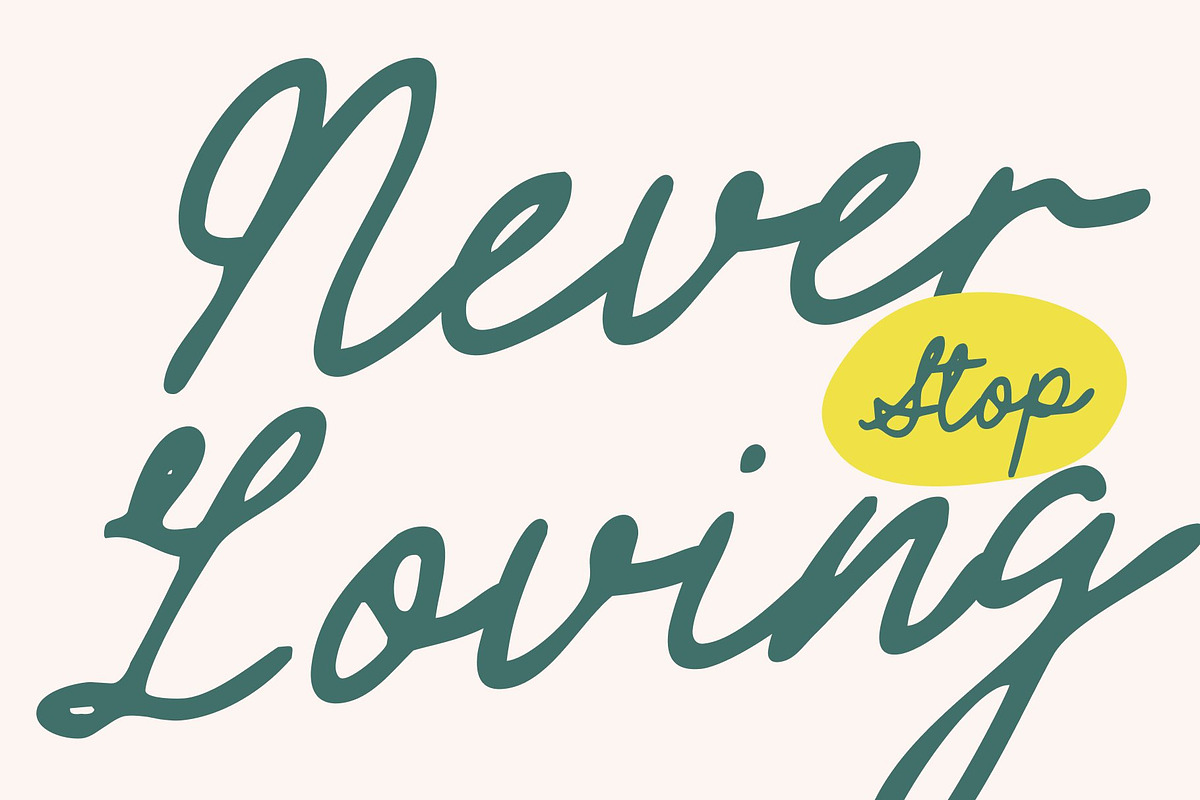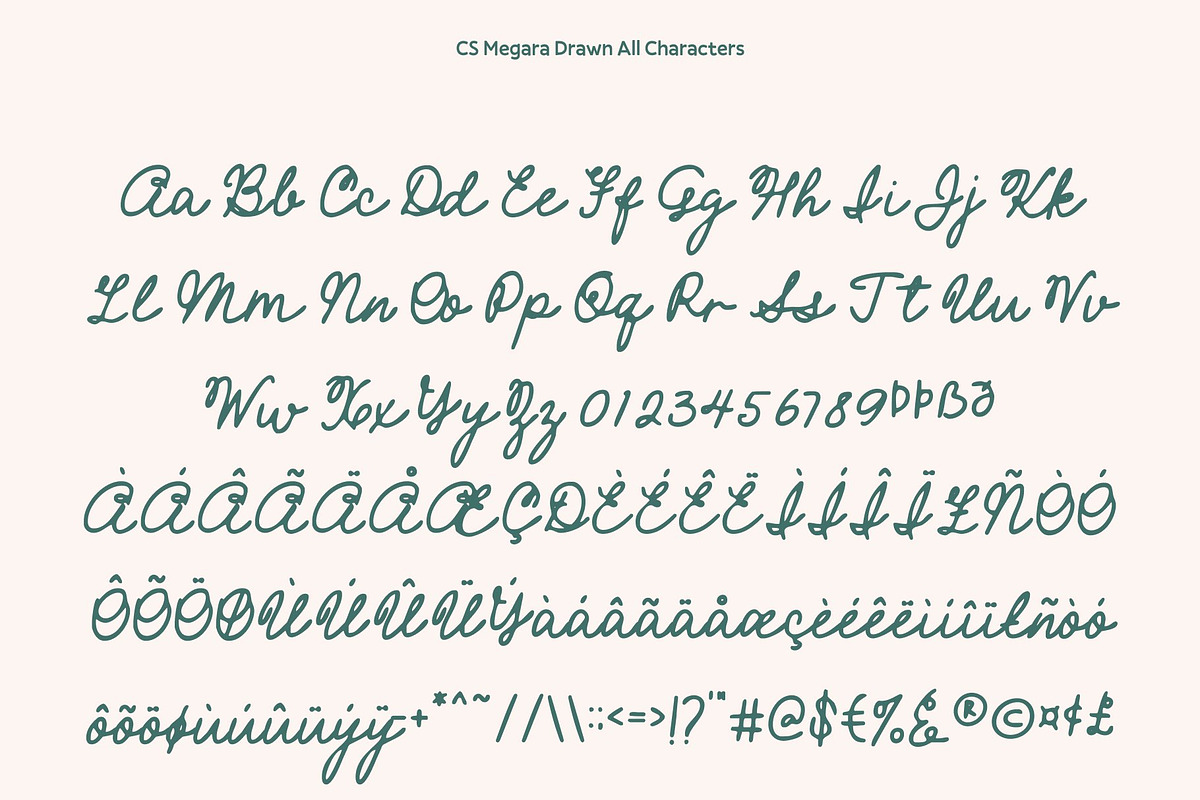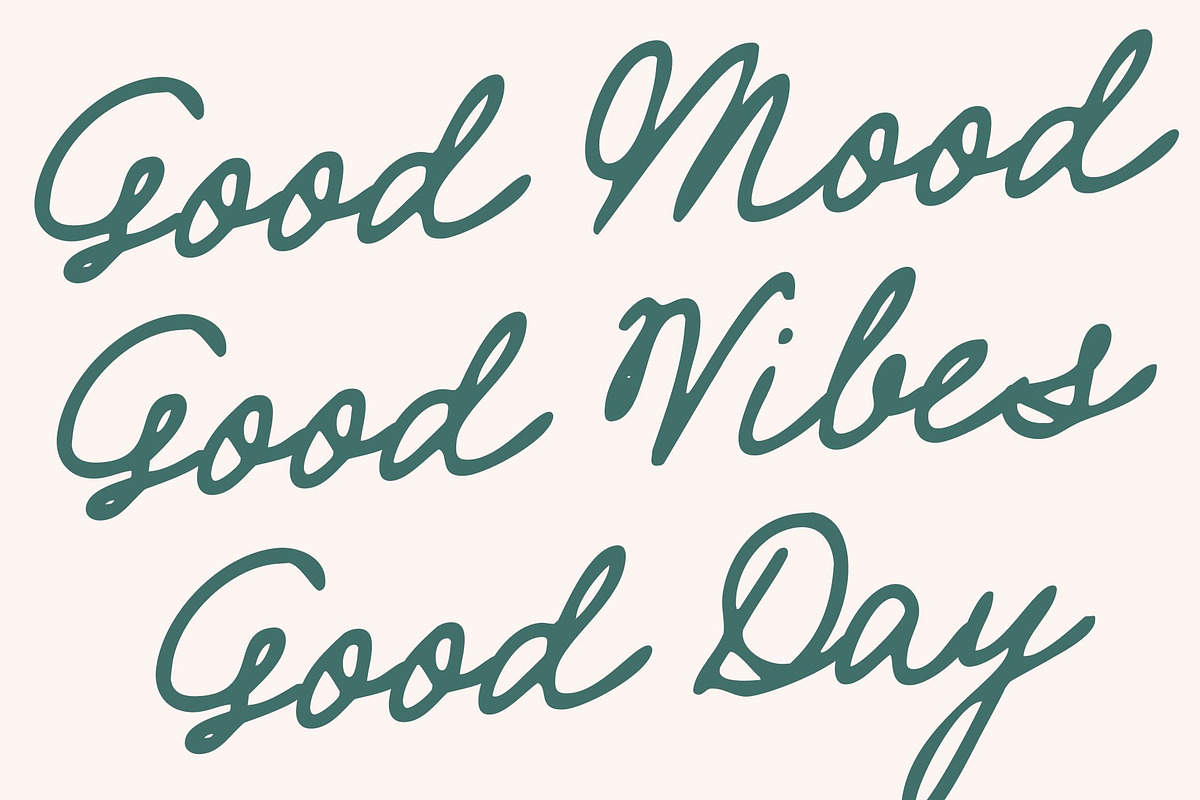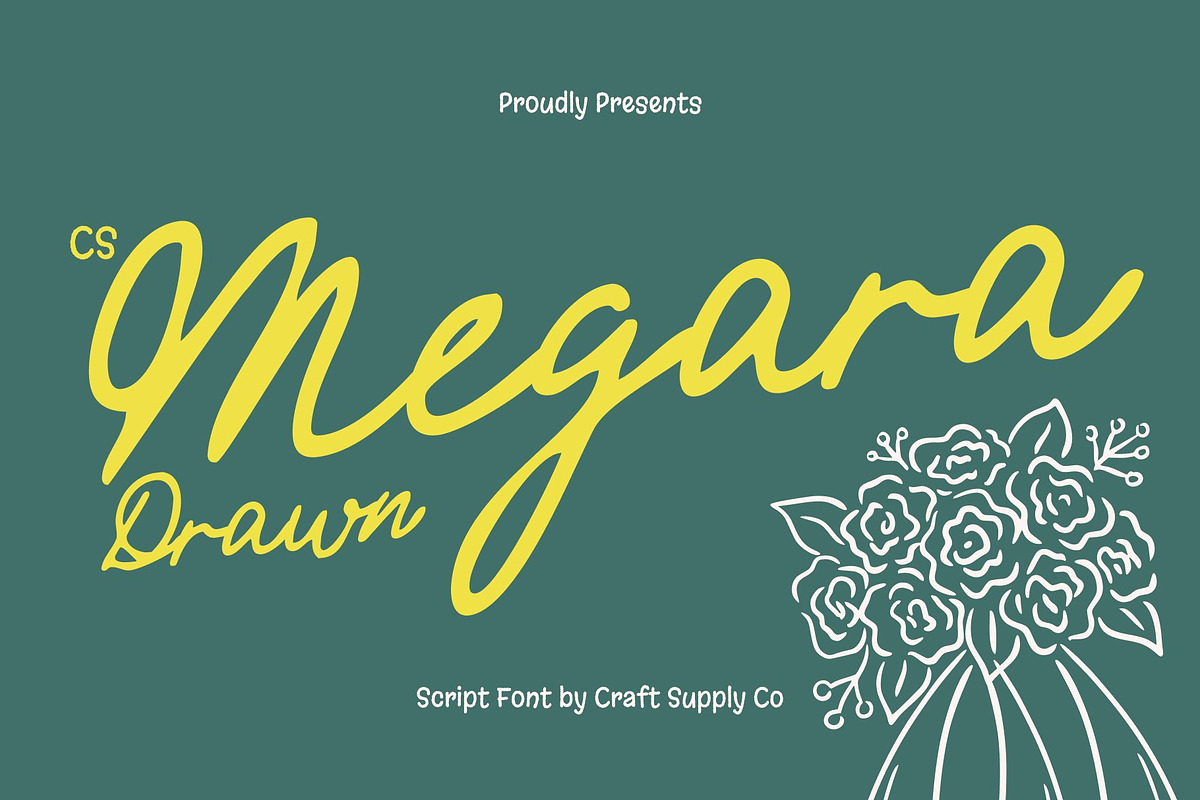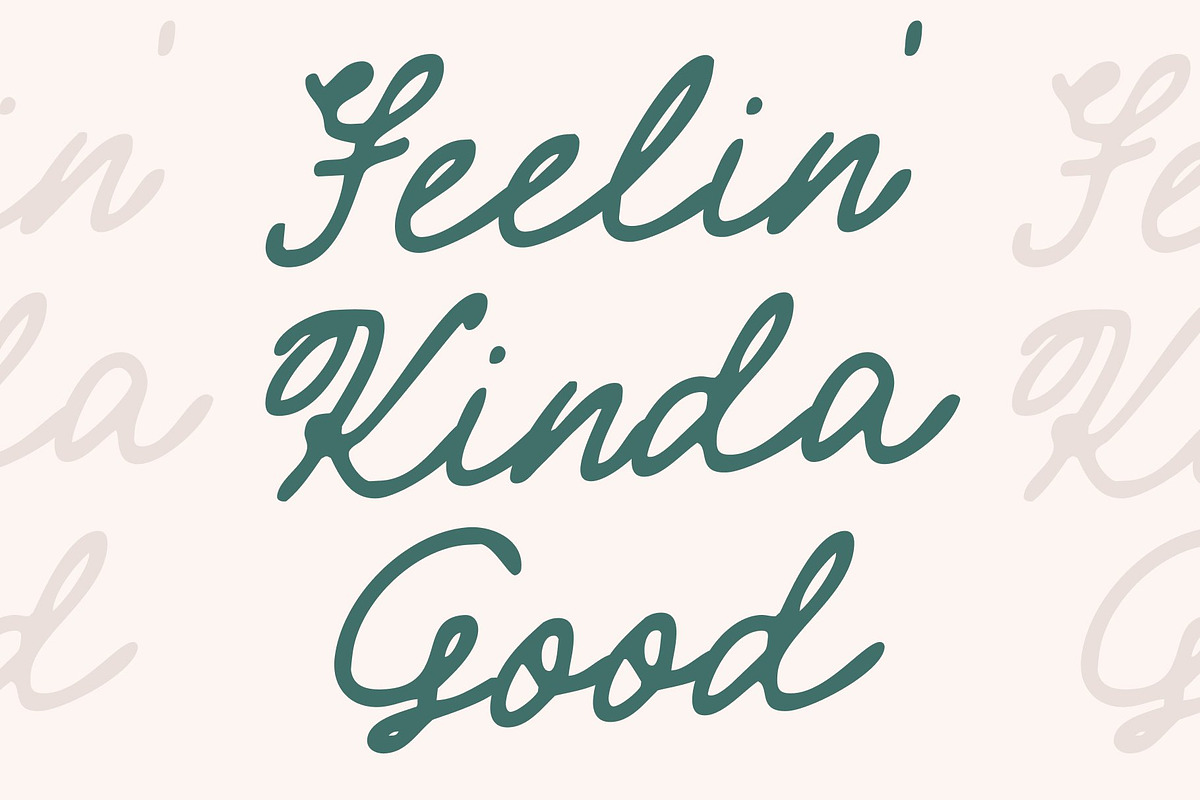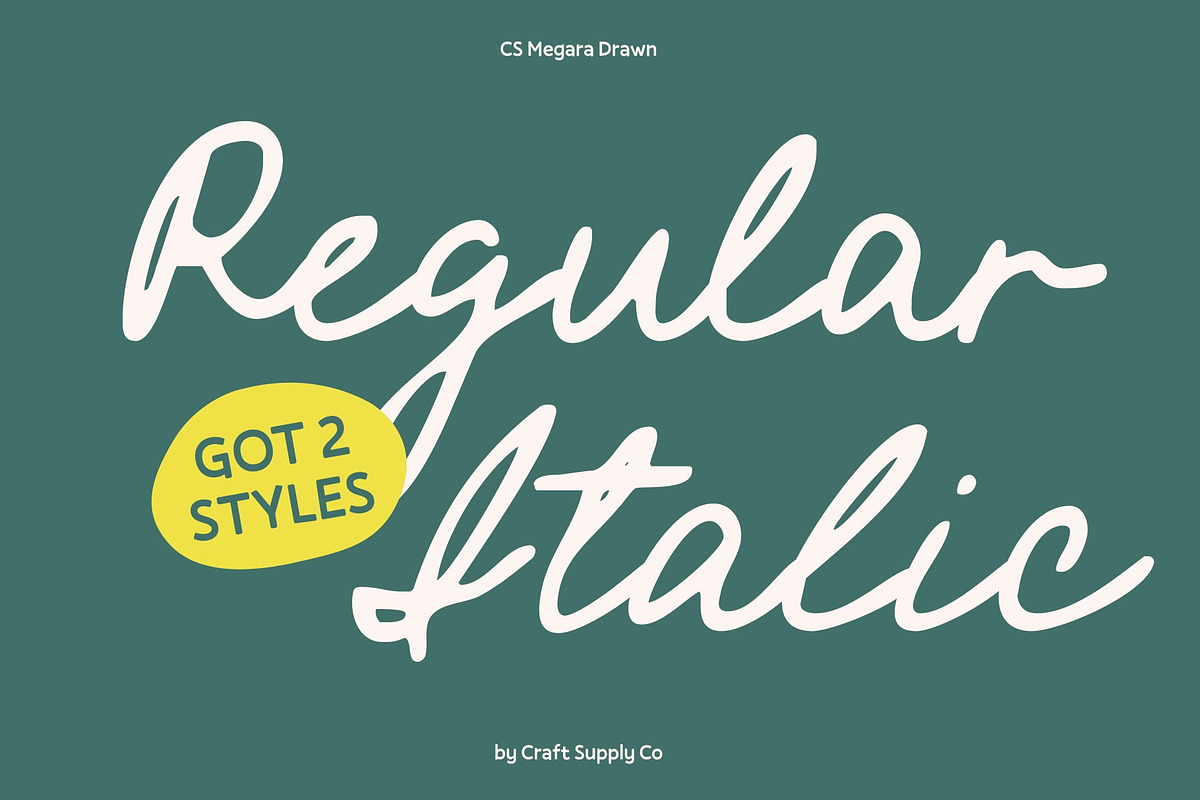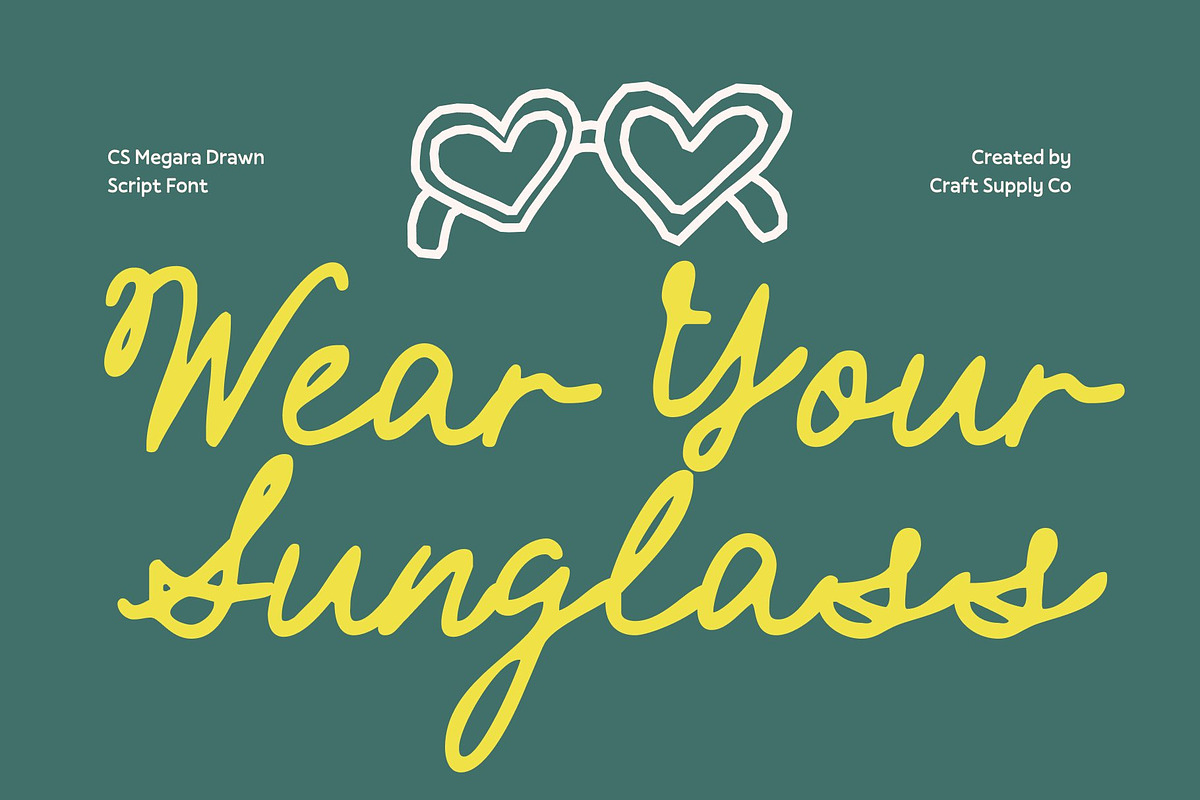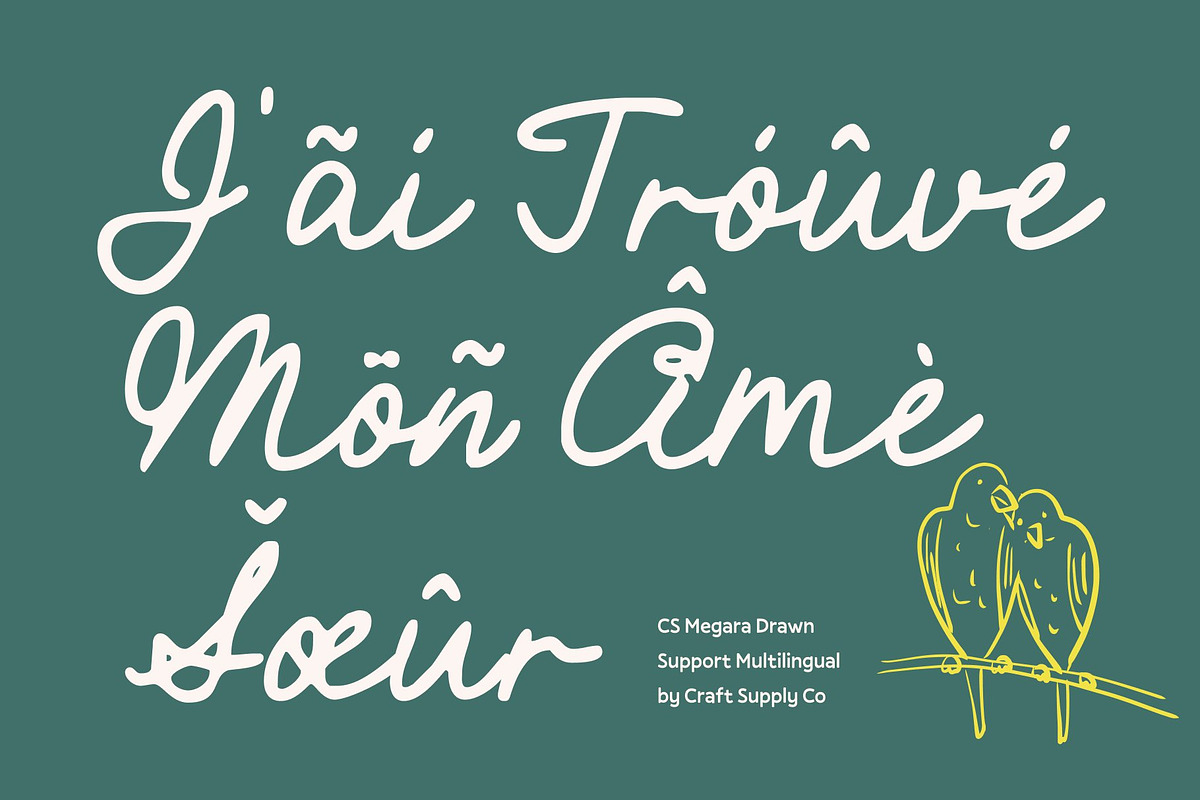
CS Megara Drawn
CS Megara Drawn – Beautiful Script with Modern Refinement
Branding Script Font with Graceful Flow This is a refined branding script font that blends elegance with contemporary clarity. Its smooth, flowing strokes create a graceful rhythm that feels polished and sophisticated, making it an excellent choice for designs that seek a high-end, modern impression. The drawn effect adds subtle texture, giving the script a natural, handcrafted charm without losing its refined character.
Modern Elegance with Clear Readability Designed with balance and legibility in mind, this font maintains clear letterforms while preserving the beauty of a classic script. Its monoline structure and clean connections ensure the font remains readable across various sizes, combining timeless charm with modern usability.
Refined Details with a Handcrafted Touch The seamless curves and thoughtful stroke transitions create a harmonious flow throughout the typeface. The drawn texture introduces a soft, organic feel, adding uniqueness and warmth to the overall design while keeping it polished and professional.
Perfect for Luxury and Creative Branding Ideal for logos, editorials, luxury packaging, invitations, fashion branding, and premium visual identities, this font delivers elegance in every stroke. Its blend of graceful flow, modern refinement, and subtle hand-drawn texture makes it the perfect choice for projects that aim to impress with sophistication, style, and personality.